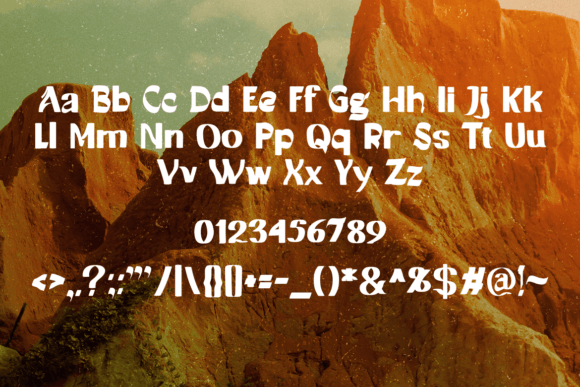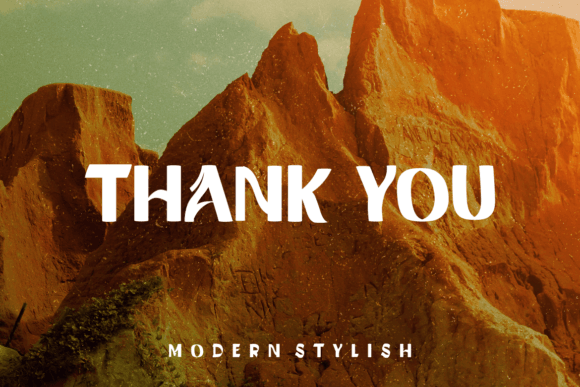
Introducing Ambora Font: Elevate Your Designs with Elegance and Simplicity
In the world of typography, fonts play a crucial role in conveying messages, evoking emotions, and creating visual identities. For designers, crafters, and creative enthusiasts, finding the perfect font can be a daunting task. However, if you’re looking for a font that embodies elegance, simplicity, and modernity, look no further than Ambora Font. This stunning display font is designed to make any text look beautiful, and its versatility makes it perfect for a wide range of applications.
What is Ambora Font?
Ambora Font is an elegant, simple, and modern display font that is sure to elevate your designs. Its clean lines, subtle curves, and sophisticated style make it an excellent choice for anyone looking to add a touch of luxury to their work. Whether you’re a designer, crafter, or DIY enthusiast, Ambora Font is a must-have in your typography arsenal.
Key Features of Ambora Font
- Elegant and Simple Design: Ambora Font boasts a sleek and minimalist design that exudes elegance and sophistication.
- Modern Twist: The font’s modern atmosphere makes it perfect for designs that require a fresh and contemporary look.
- Versatile: Ambora Font can be used on various platforms, including T-shirts, posters, book covers, cards, merchandise, and more.
- Easy to Read: The font’s clear and legible design ensures that your text is easy to read, even at smaller sizes.
Uses of Ambora Font
Ambora Font is an incredibly versatile font that can be used in a variety of applications, including:
- T-shirts and Apparel: Add a touch of elegance to your T-shirt designs with Ambora Font.
- Posters and Flyers: Create stunning posters and flyers that grab attention with Ambora Font.
- Book Covers: Give your book covers a professional and sophisticated look with Ambora Font.
- Cards and Invitations: Create beautiful cards and invitations that showcase your personal style with Ambora Font.
- Merchandise: Use Ambora Font on your merchandise, such as mugs, phone cases, and tote bags, to add a touch of elegance.
Why Choose Ambora Font?
With so many fonts available, why choose Ambora Font? Here are a few reasons why Ambora Font stands out:
- Unique and Exclusive: Ambora Font is a unique and exclusive font that will set your designs apart from the rest.
- High-Quality: The font is designed with high-quality and precision, ensuring that it looks great in any application.
Tips for Using Ambora Font
To get the most out of Ambora Font, here are a few tips:
- Use it as a Display Font: Ambora Font is designed to be used as a display font, so use it to grab attention and make a statement.
- Experiment with Colors: Try pairing Ambora Font with different colors to create a unique and eye-catching design.
- Keep it Simple: Don’t be afraid to keep your design simple and let Ambora Font take center stage.